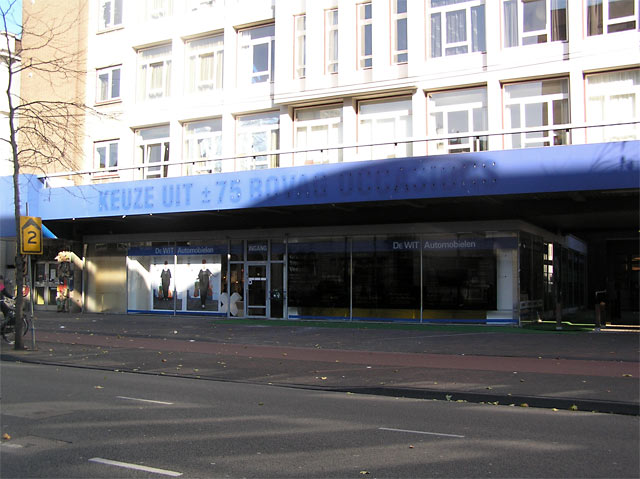
![]() Zigzag Zombie Keep folding material until lettering is finished First the zigzag: Take one long piece of material, and make letters by endlessly folding the material. Material can be anything: rolls of paper (easy for sketching), tape, thin metal, toilet paper, thin cardboard, etc. as long as it is long, and as long as you can fold it. Keep sketching and experimenting, and try to find different ways of creating letters with your material. Create a strong, outspoken, unique style. Then the zombie: Once you have found your specific visual style of lettering, go to the city, pick one location, and create a large scale zigzag lettering and make passerby's hallucinate. This typeworkshop runs for 2 days during the Dutch Design Week in Eindhoven. ![]()